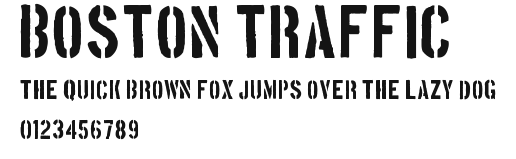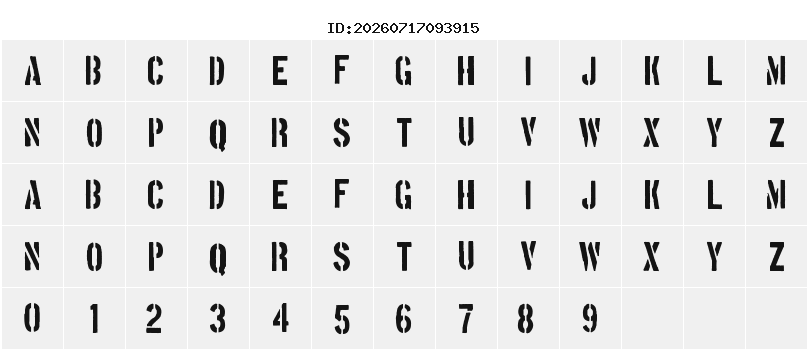
Boston Traffic Preview
• Font Name: Boston Traffic
• Copyright: 2004 Vic Fieger, Xaviera Comics
About Boston Traffic.ttf
Boston Traffic.ttf is a modern, elegant sans-serif font designed for ultimate readability and visual harmony. Perfect for branding, headlines, web design, and print materials.